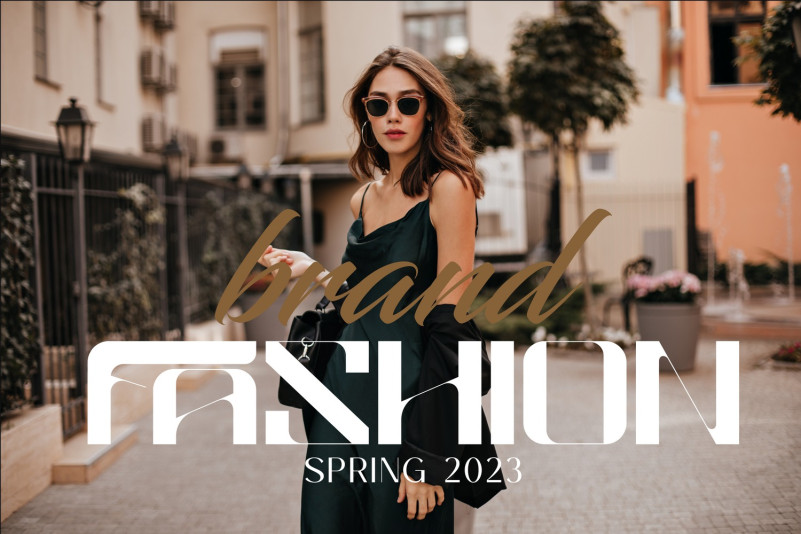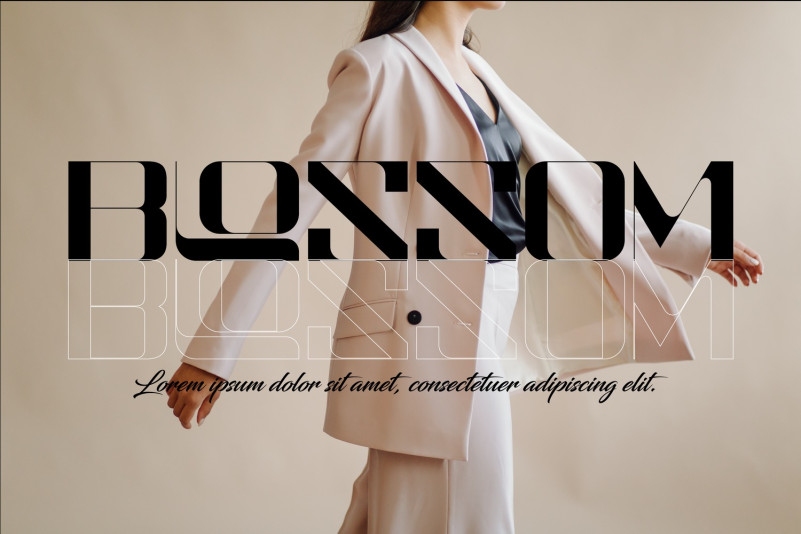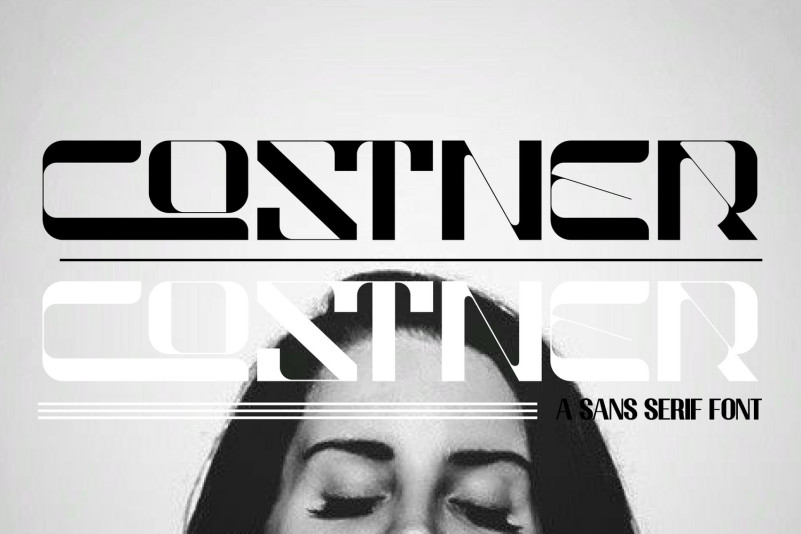
Costner Font
Costner – Stylish Display Font is a modern and elegant look of a sans serif tagline. It’s an unique display font that will make your design looks more unique and attractive. This font will add some fun vibes to your designs. This font is perfect for t-shirt design, book covers, titles and many more.
To make it look more unique, here we prepared some ligatures:
CA CF CC CI CL CM CO CP CR CU EA EF EC EI EL EM EO EP EN EU FA FC FO FU HB HD HK HM HN HP HR HW KS LC LL LO LU MB MD MH MK MP MR ZN ZP ZR ZH ZK ZF ZA WB WD WH WK WM WN WP WR UB UD UH UK UM UN UP UR TT TZ SZ ST RS QS NB ND NH NK NP NR